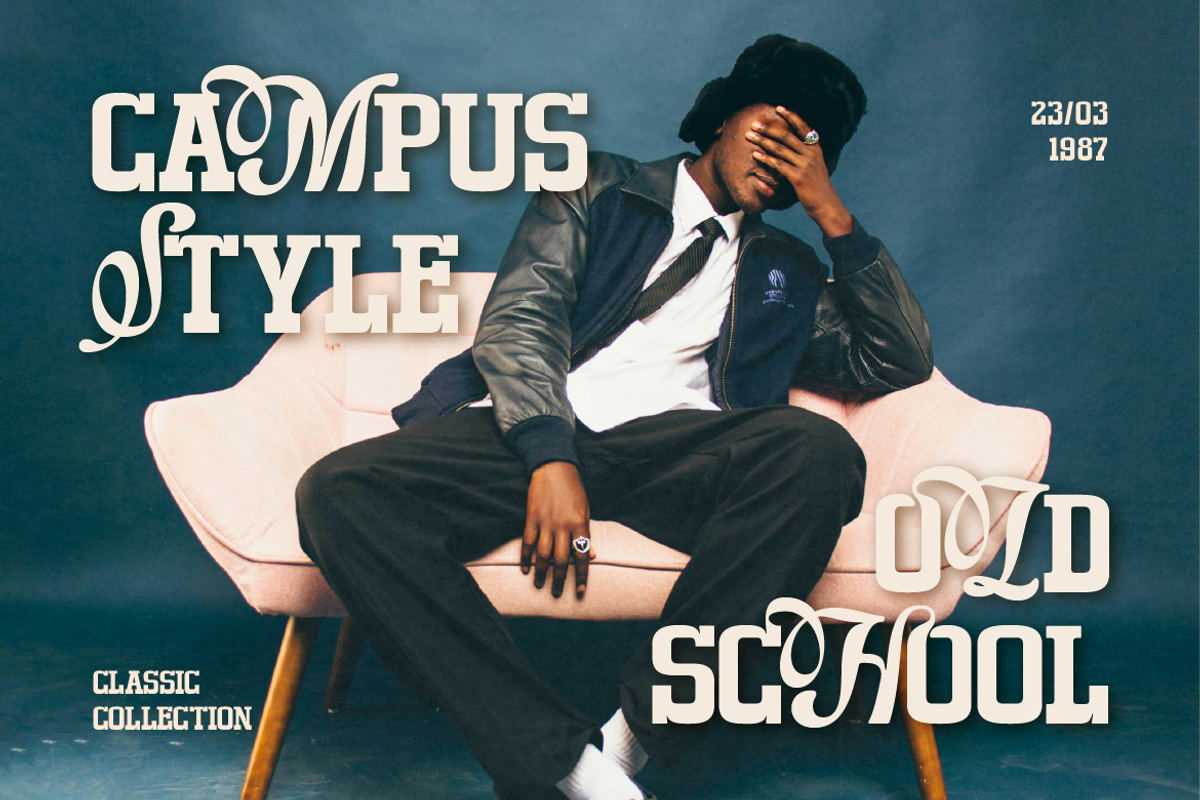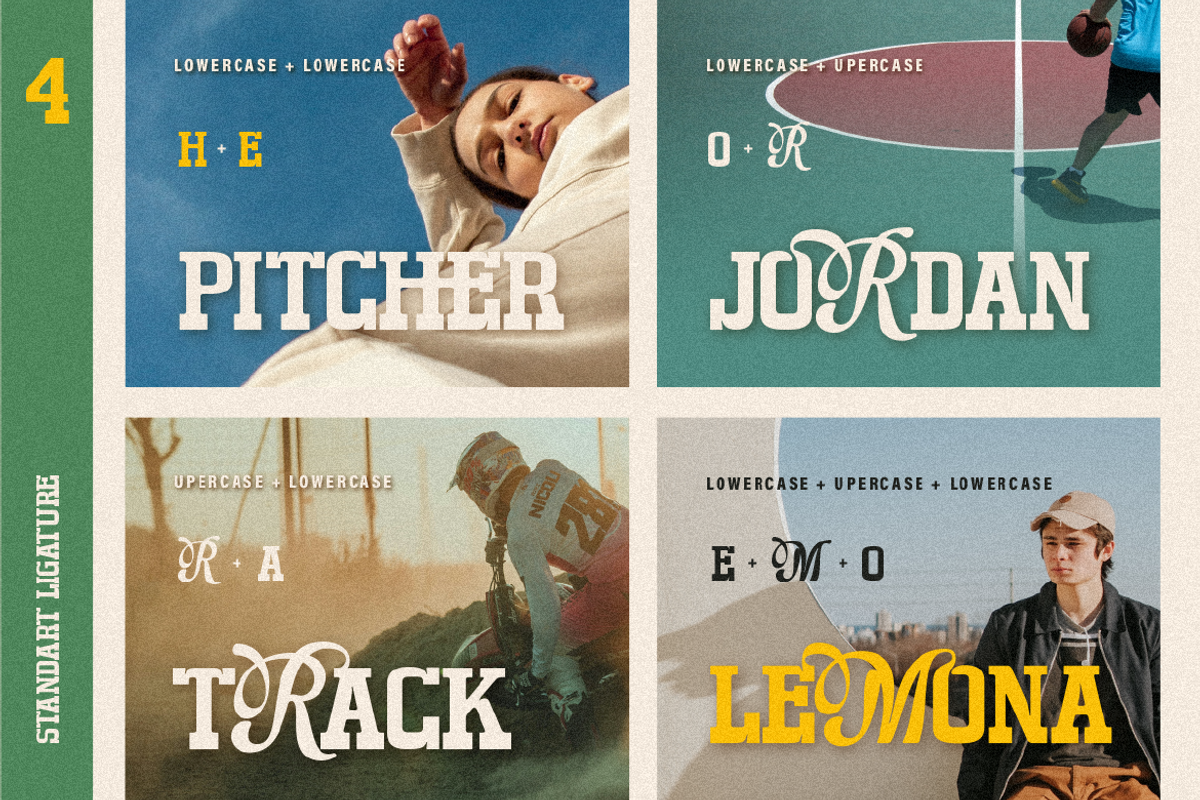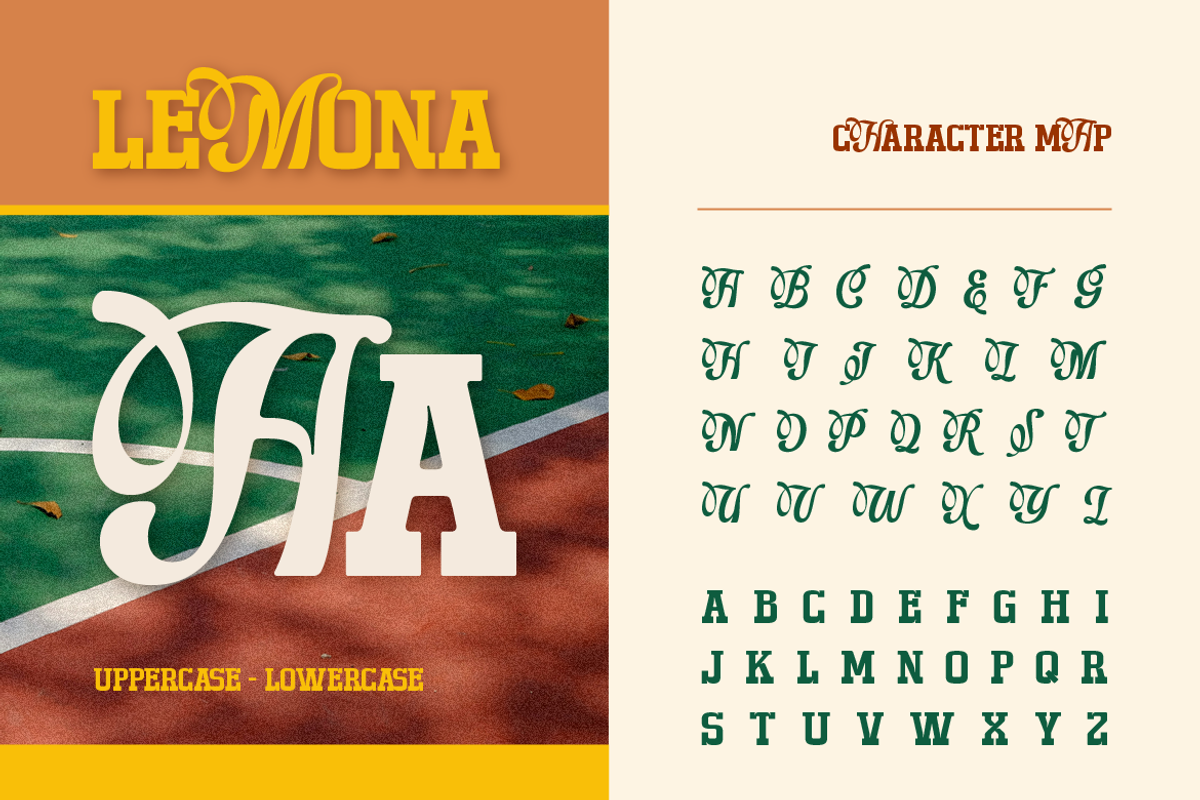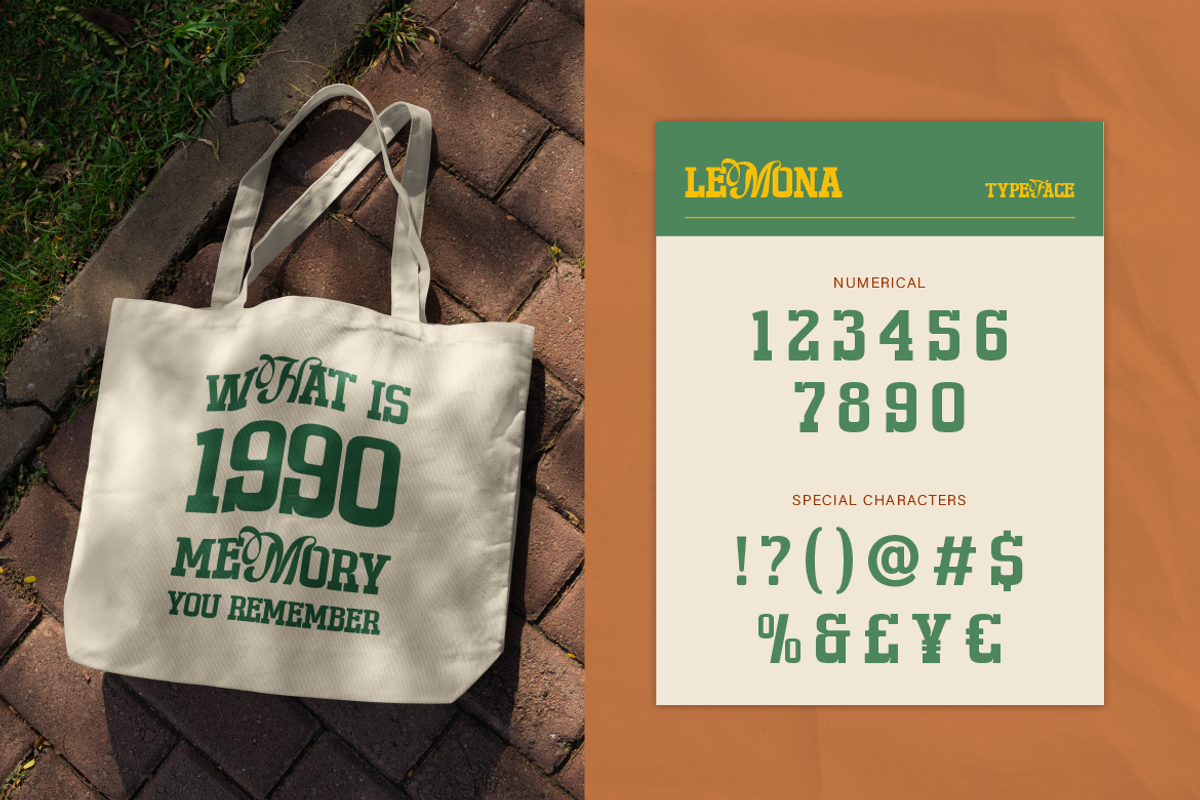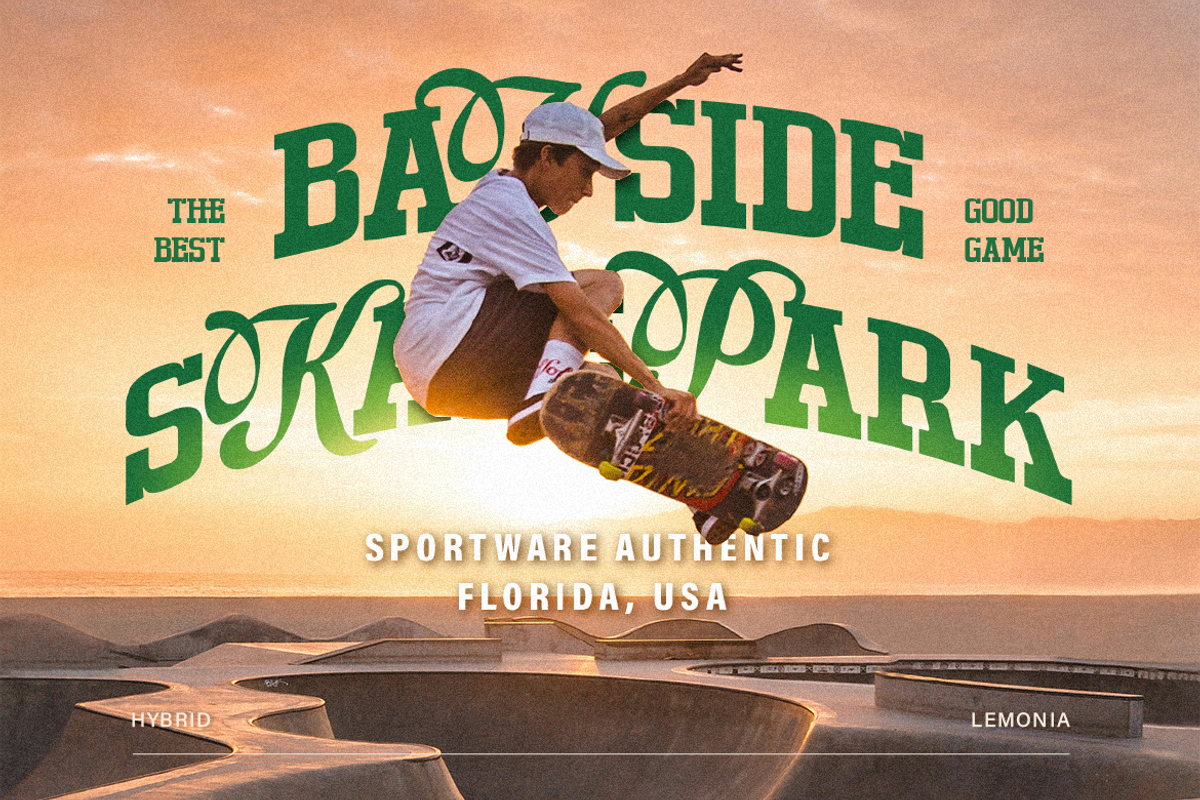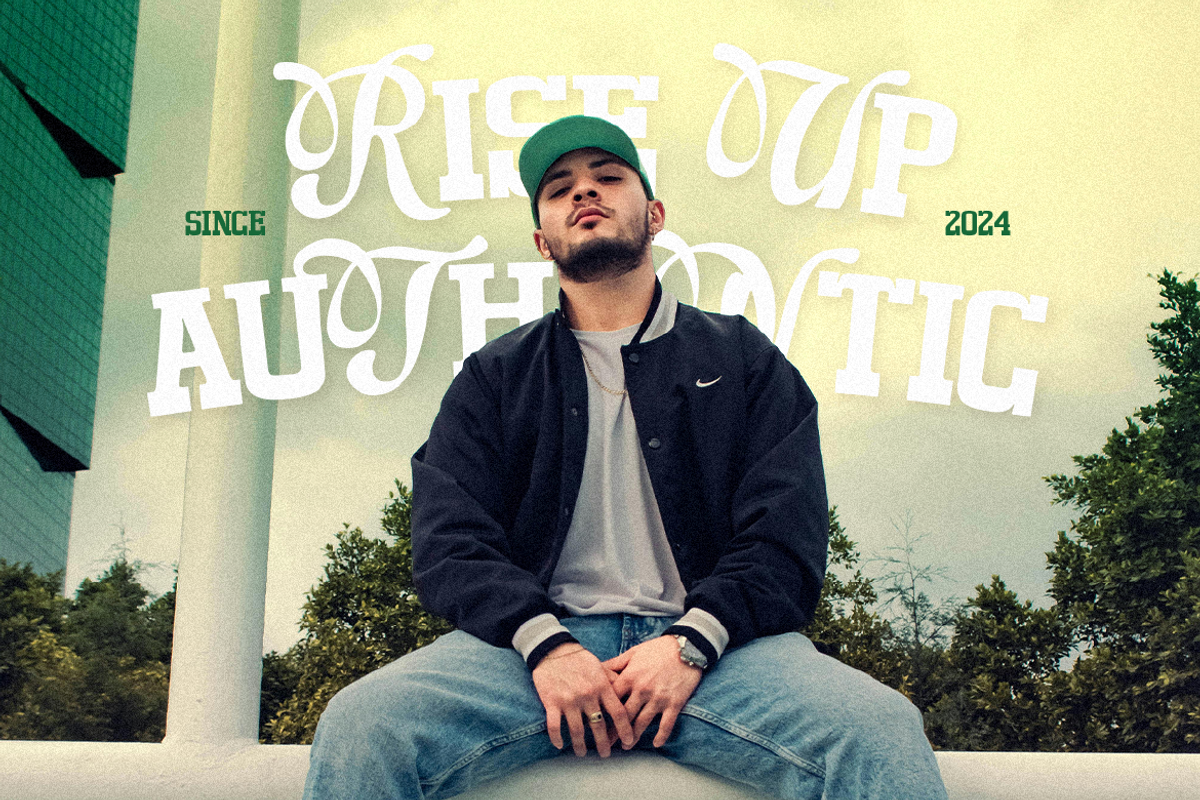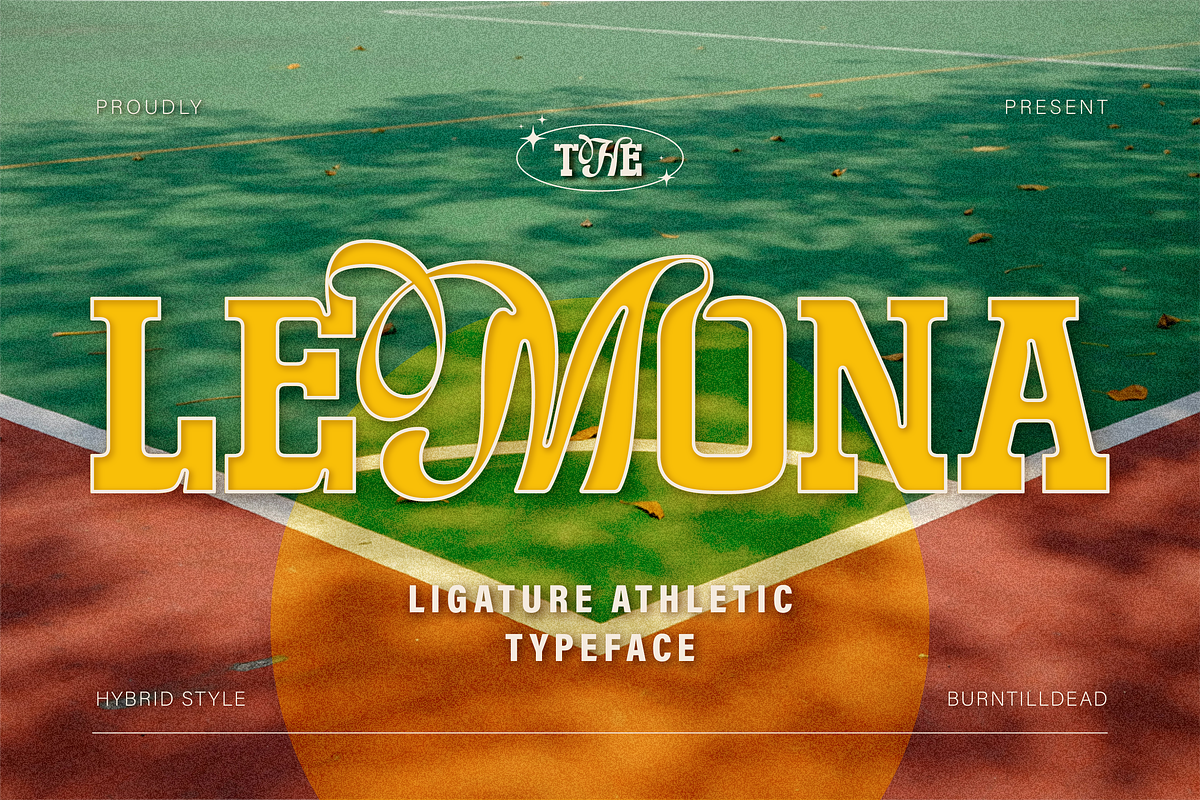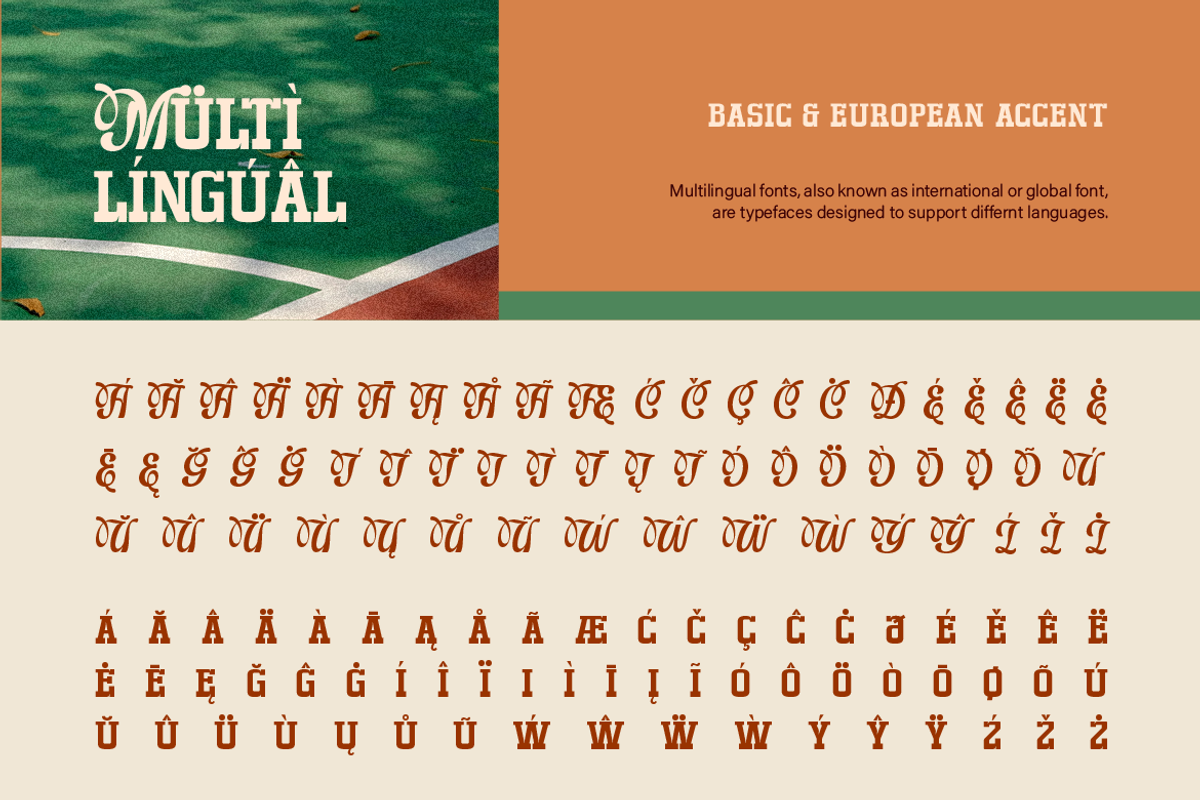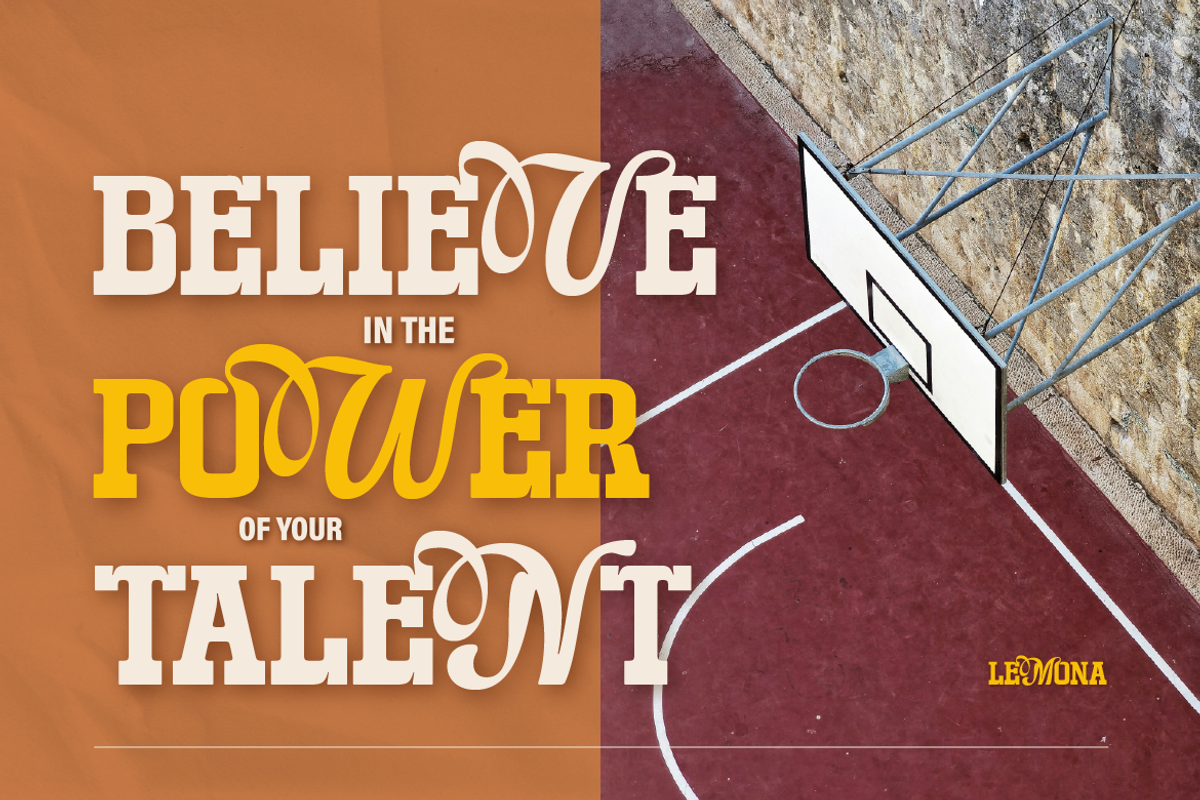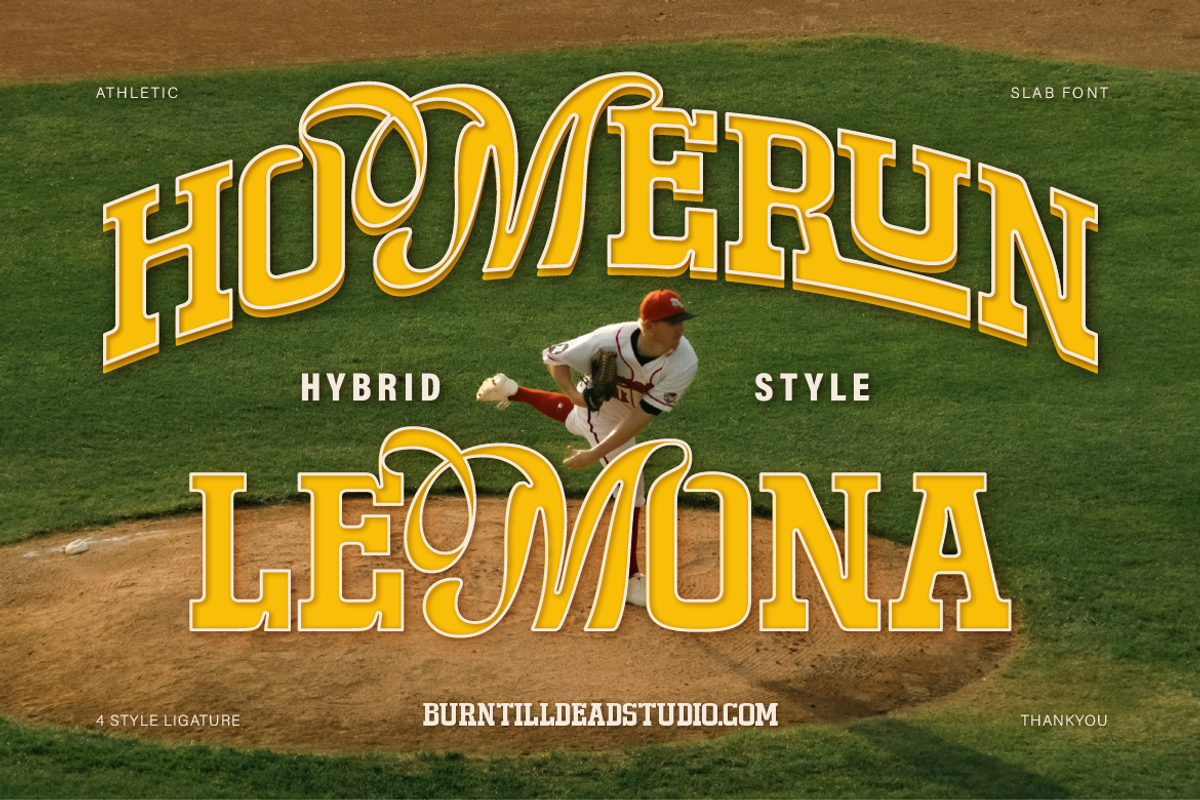
Lemona - Hybrid Style
Proudly present, Lemona, our hybrid font that combines the energetic athletic font with bold and elegant script styles. The result is a unique and versatile typeface that command attention while maintaining a sense of dynamic, elegance and readability. Perfect for sports branding, motivational poster, stylish apparel, dynamic headlines, and impactful designs. Each letter is designed to stand out with its unique blend of strength and elegance. Whether in print or digital media, this typeface brings a fresh, modern twist to slab serif athletic and script fonts, making it a versatile choice for a wide range of design needs.
- A - Z set